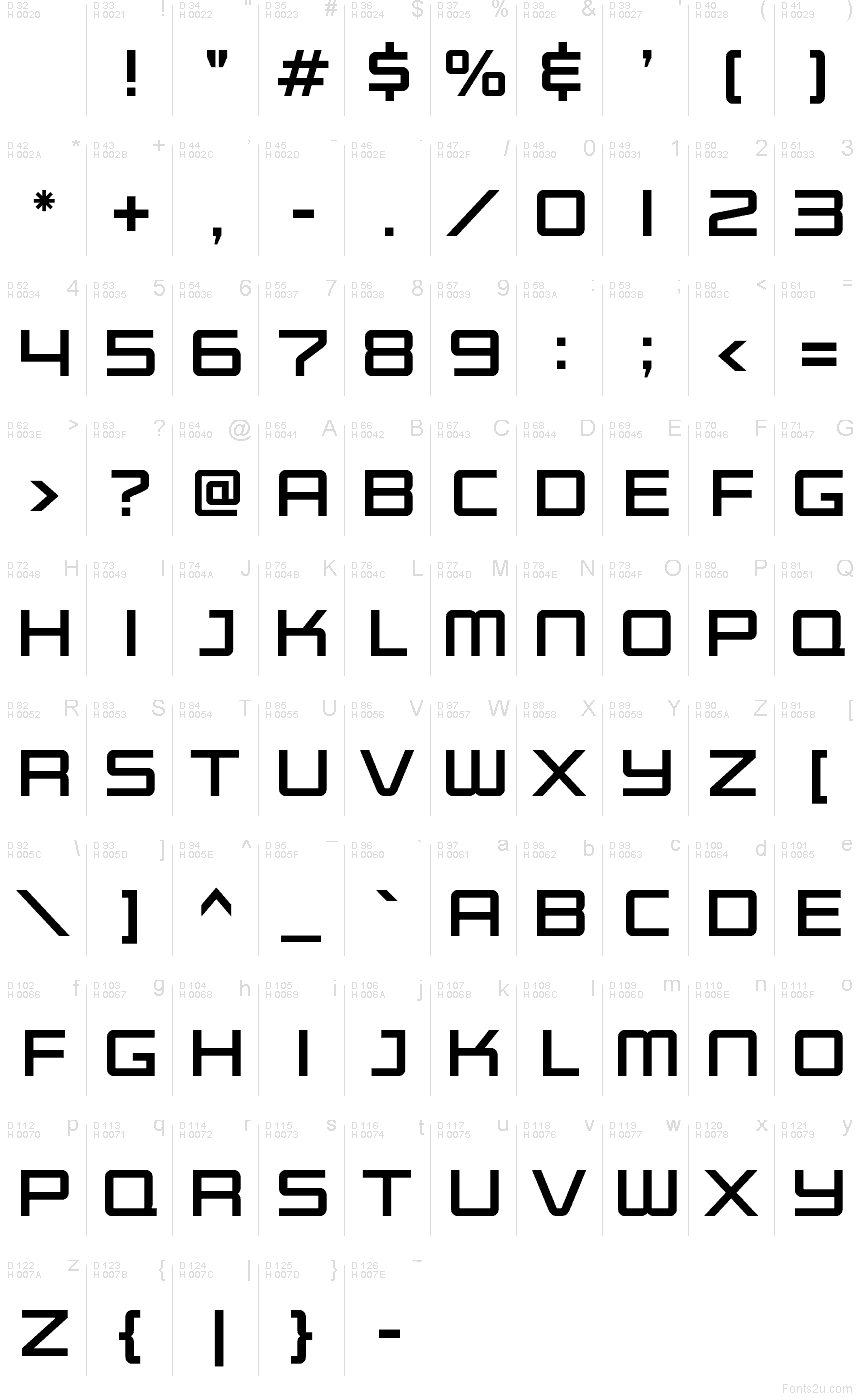
TC Chevron
TC Chevron font by Type City Font Co is a free futuristic display typeface with a sharp, modular voice. Its squared curves, sliced corners, and tight, grid-like rhythm feel like interface labeling pulled straight from a sci‑fi cockpit. The consistent stroke weight keeps it clean and readable while those angular cuts inject a distinct, techy character that stands out at a glance.
Using TC Chevron, you can give game logos, esports branding, tech conference posters, UI headers, streaming overlays, and sci‑fi book covers a cohesive high-tech sheen. This free font shines at larger sizes where its geometric forms can breathe; pair it with a simple grotesque sans for body text to keep layouts crisp and future-forward.